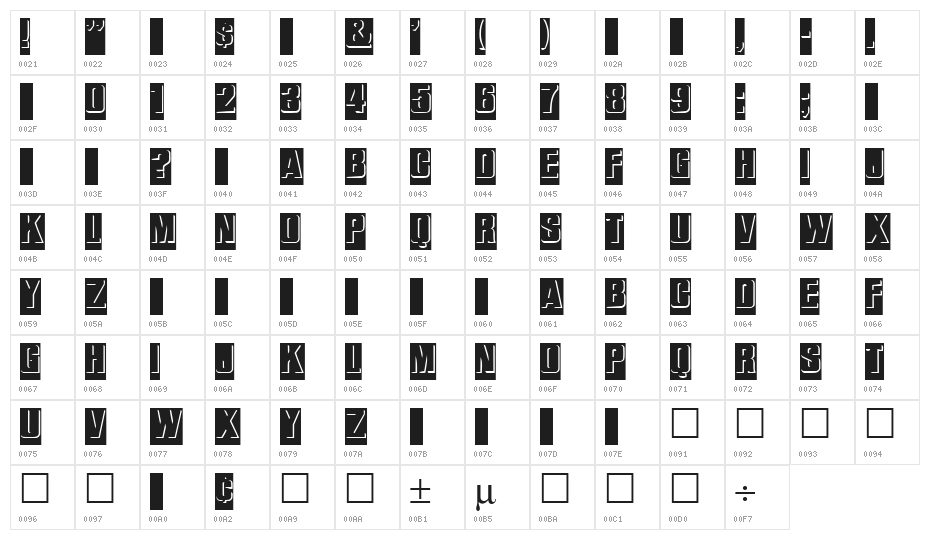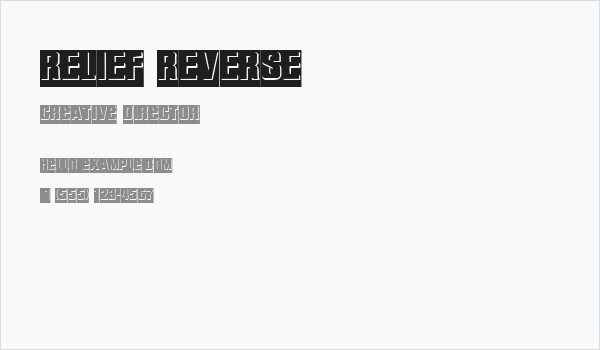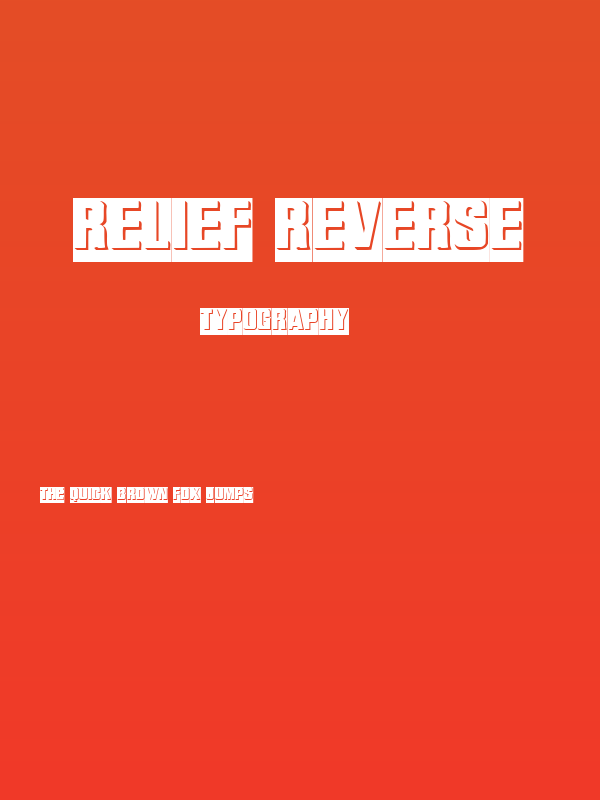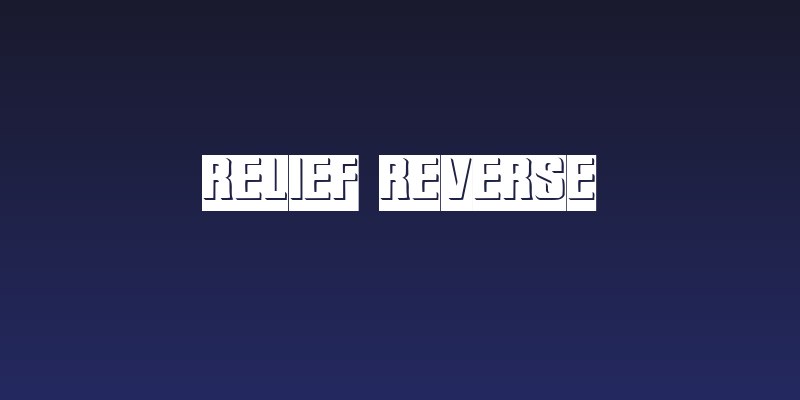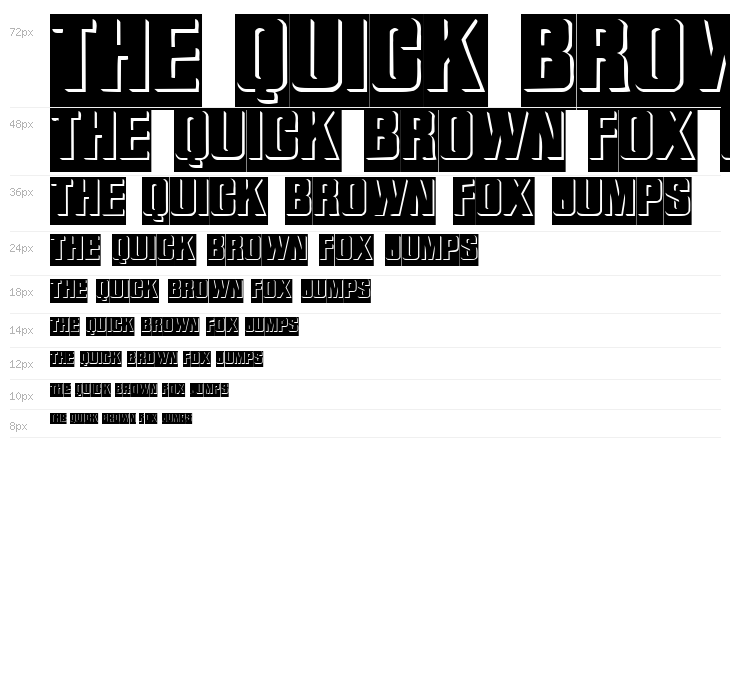
Relief Reverse Font
Relief Reverse Description
This font features a bold, impactful design with a reverse relief effect, where the characters are outlined and the interior is cut out, creating a striking contrast against the background. The uppercase letters are blocky and robust, with a uniform width that gives a sense of stability and strength. The numbers and special characters follow the same design principles, ensuring consistency across all glyphs. The font's unique style makes it stand out, ideal for designs that require a strong visual presence.
| Proposed Projects | Ideal for posters, signage, branding, and any project that requires a bold, eye-catching typeface. |